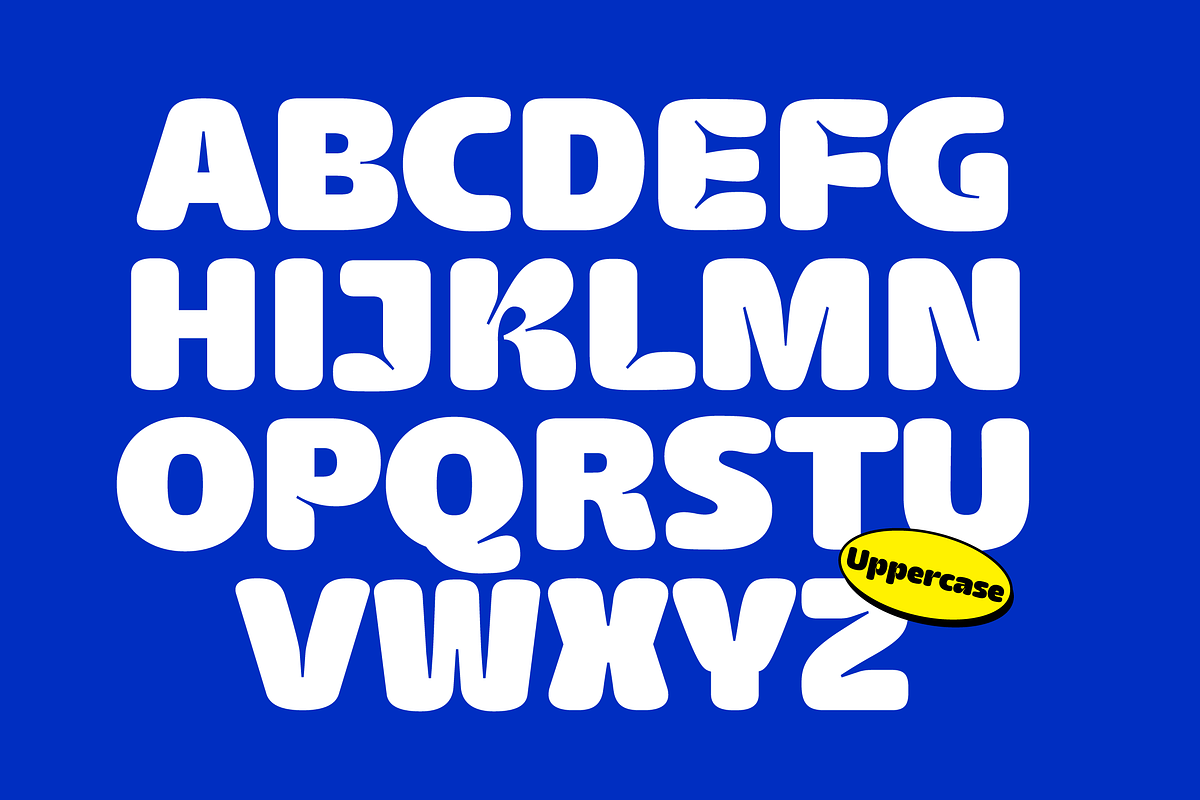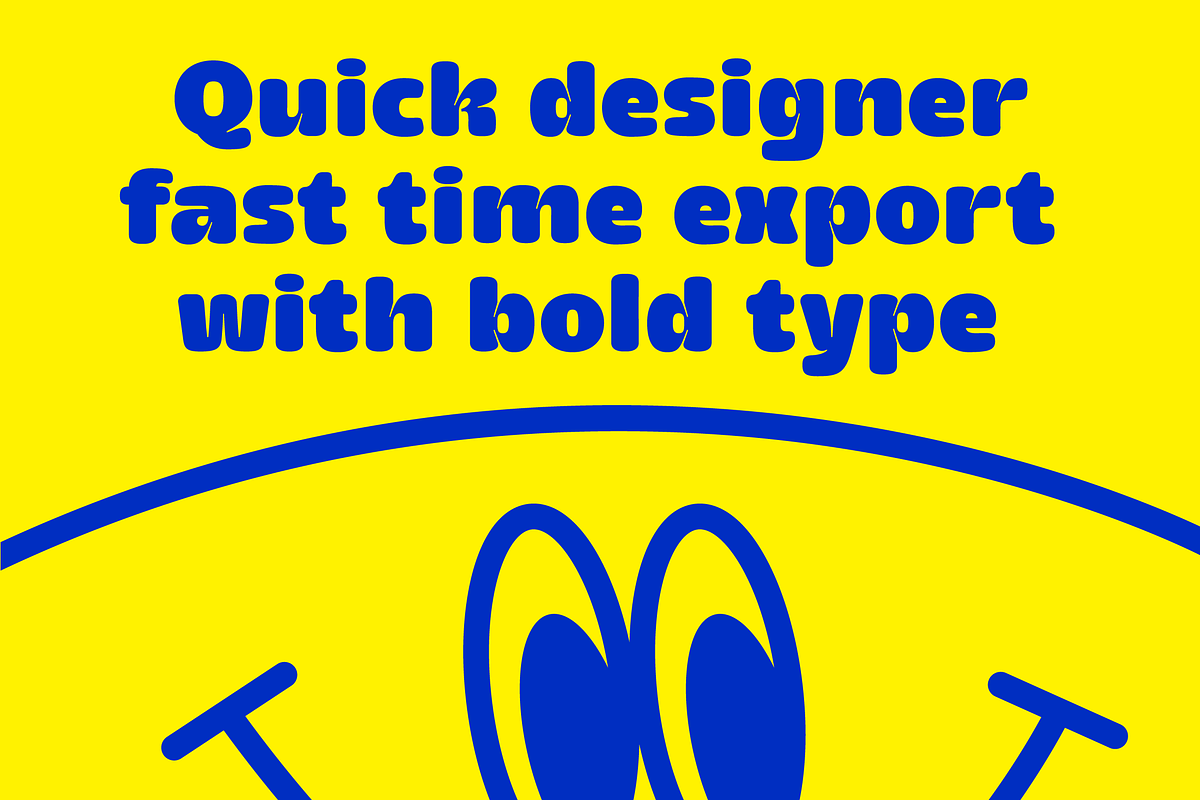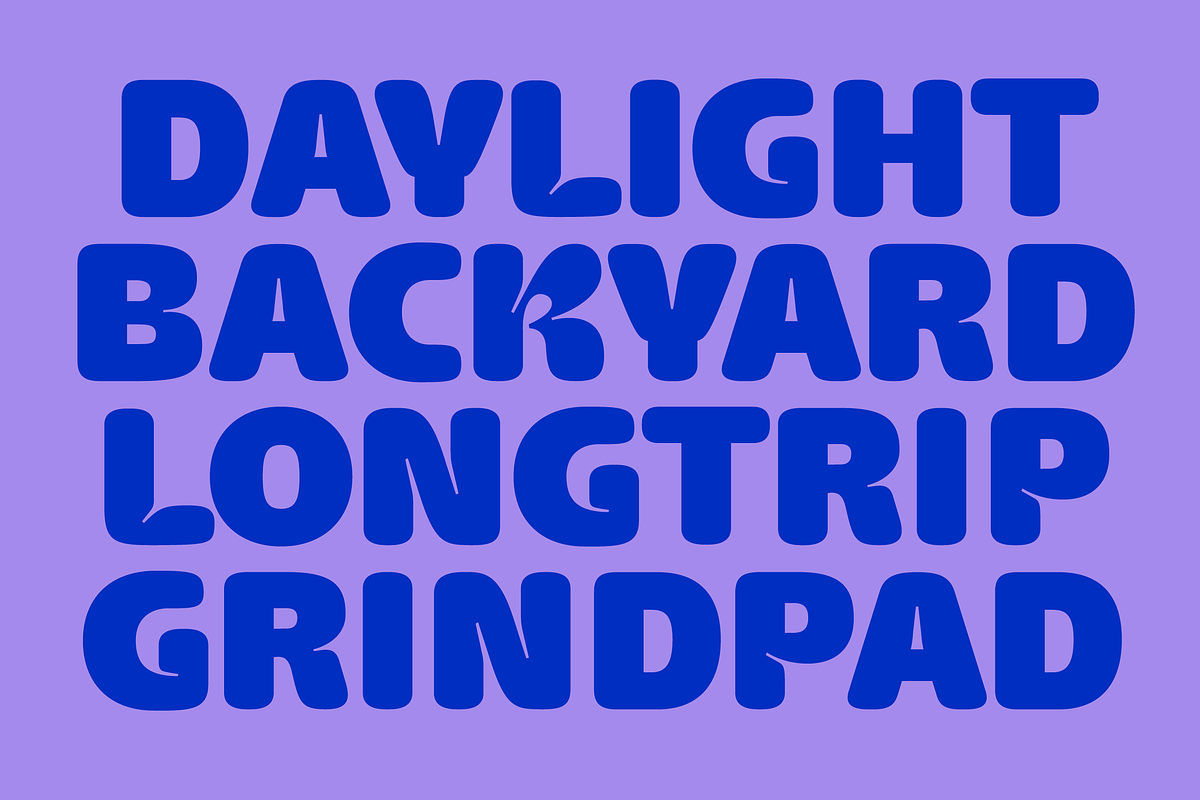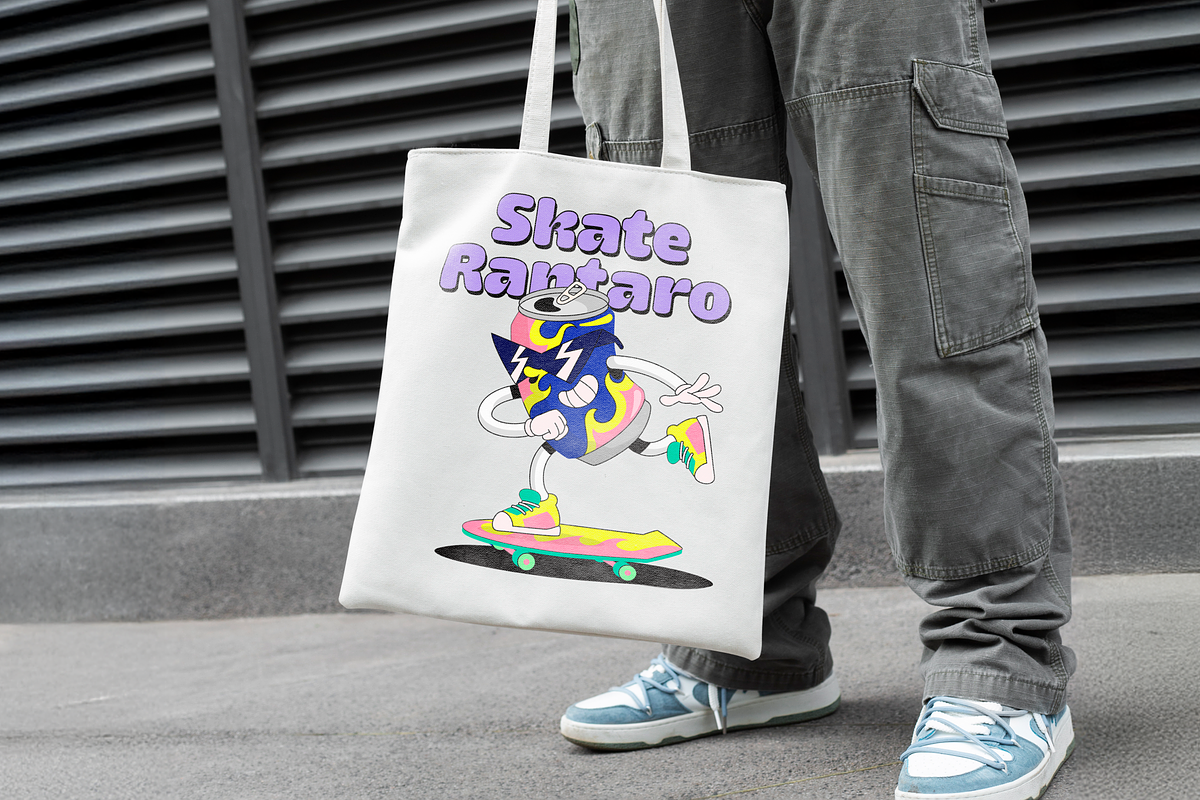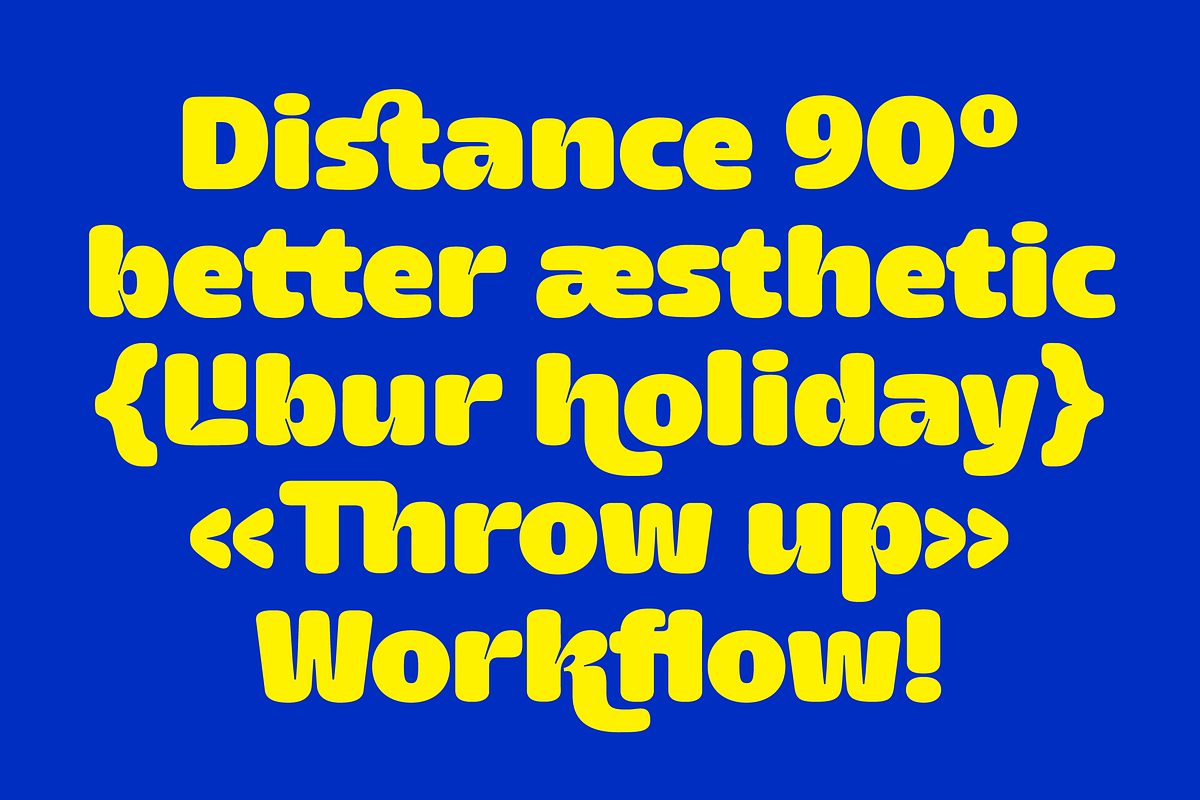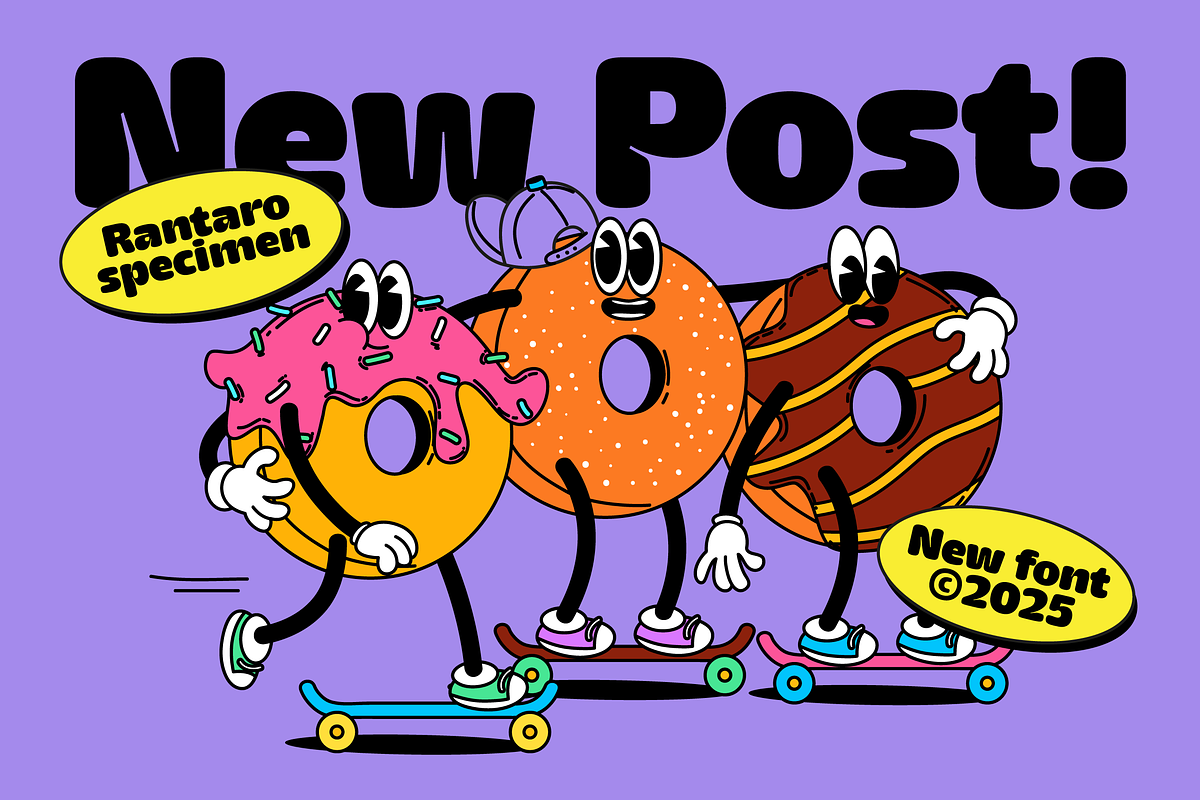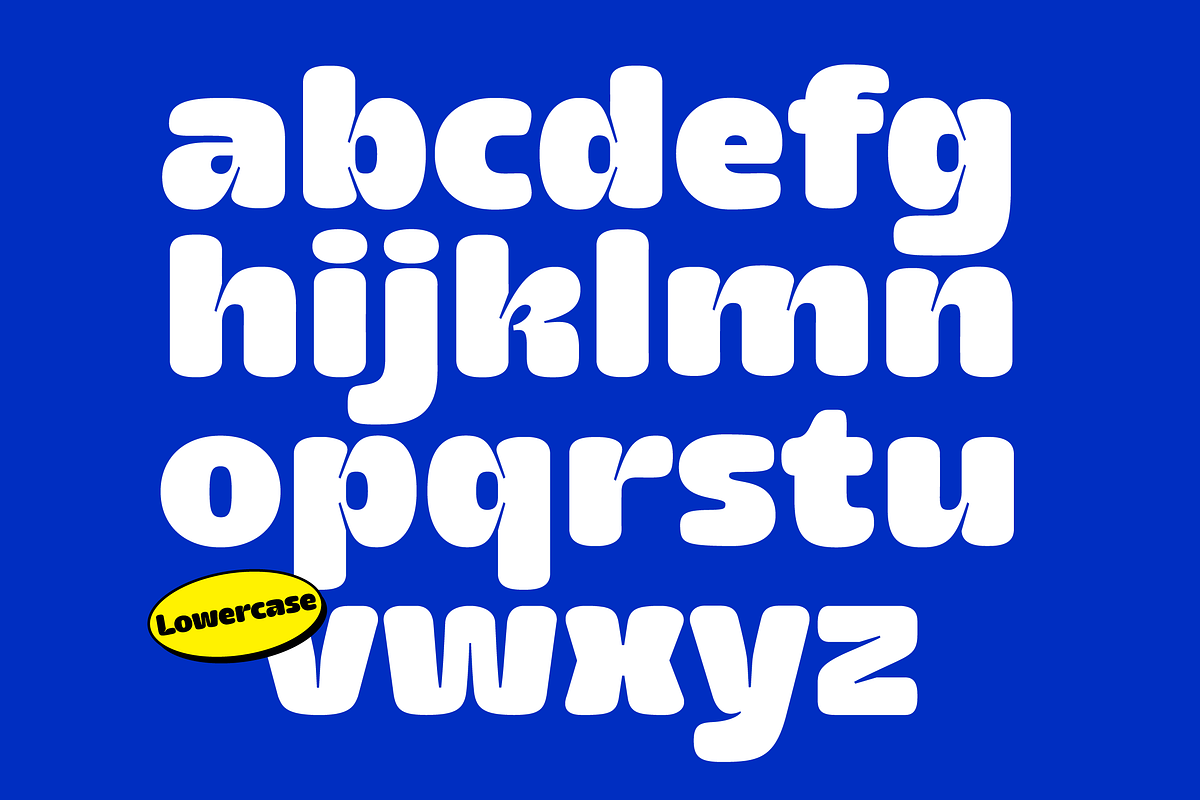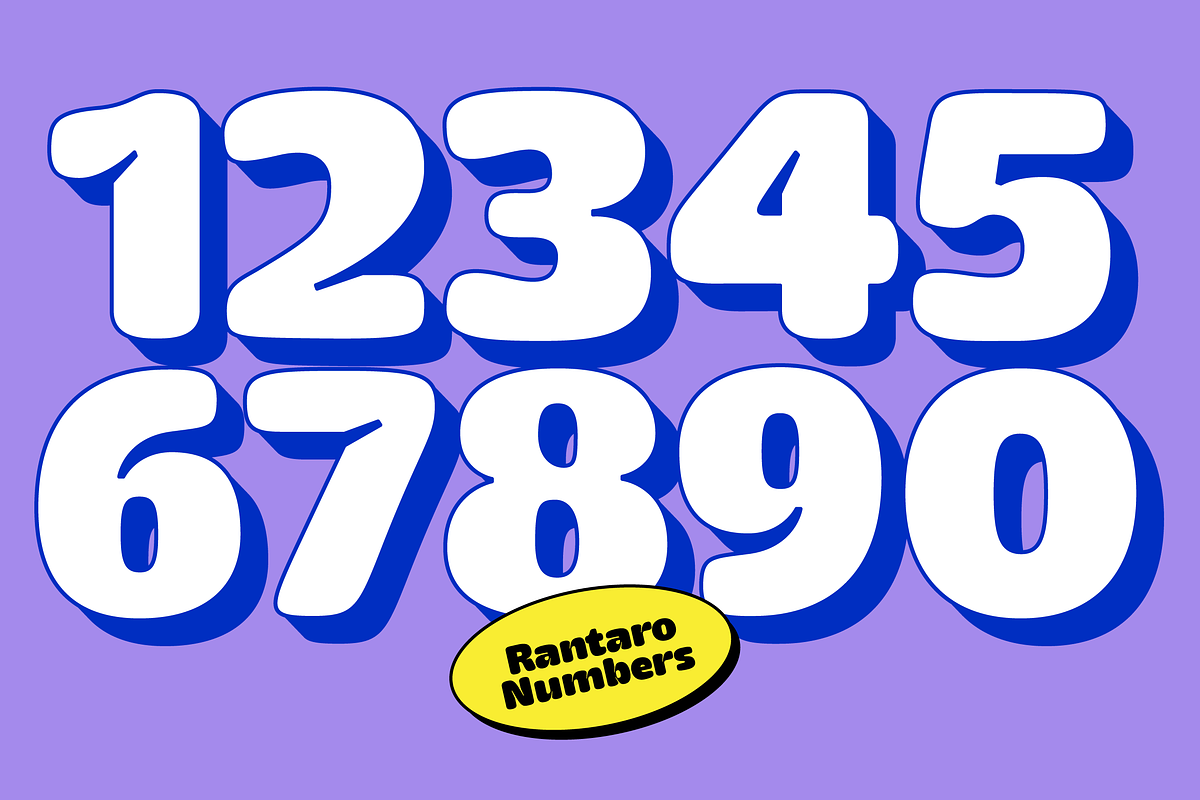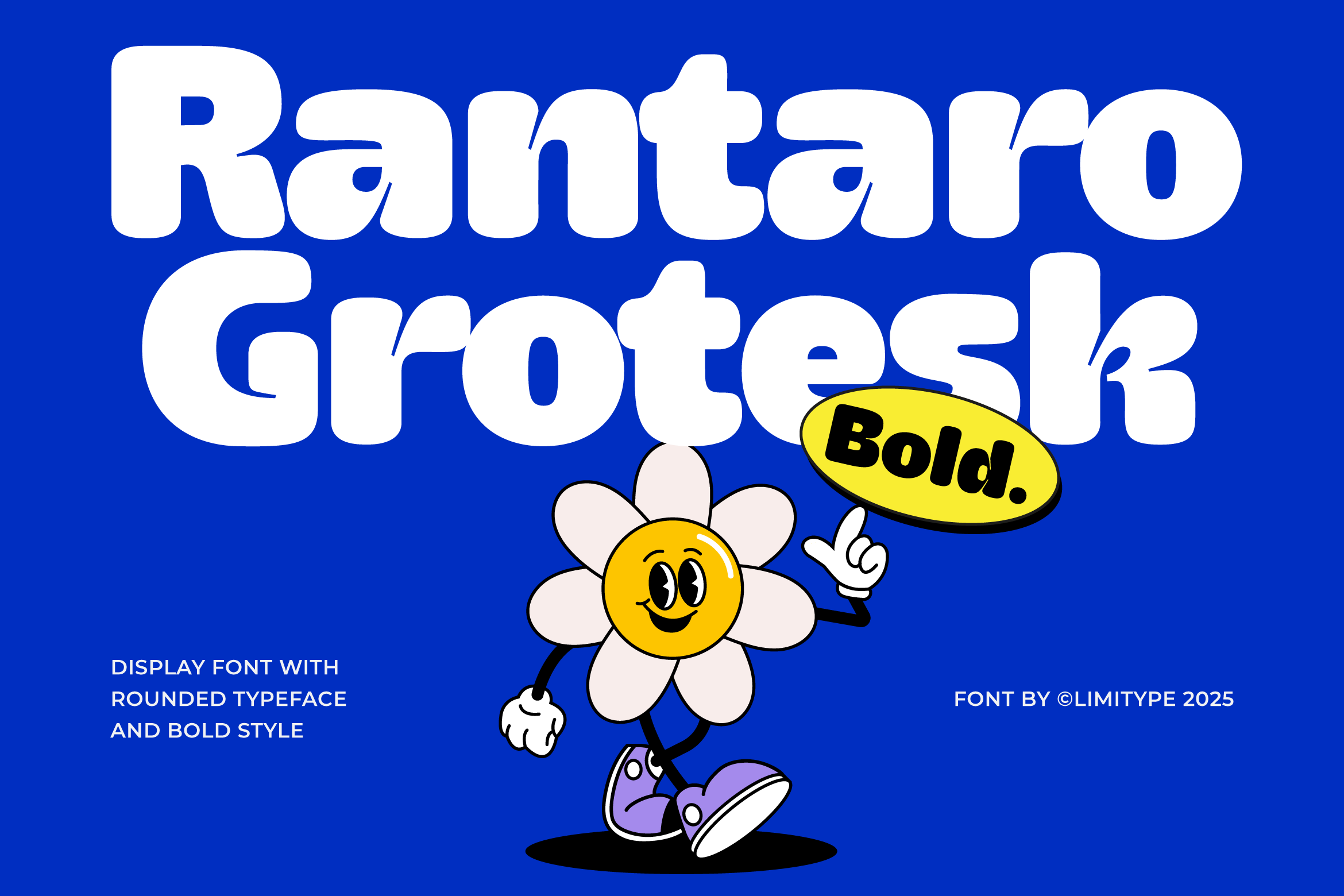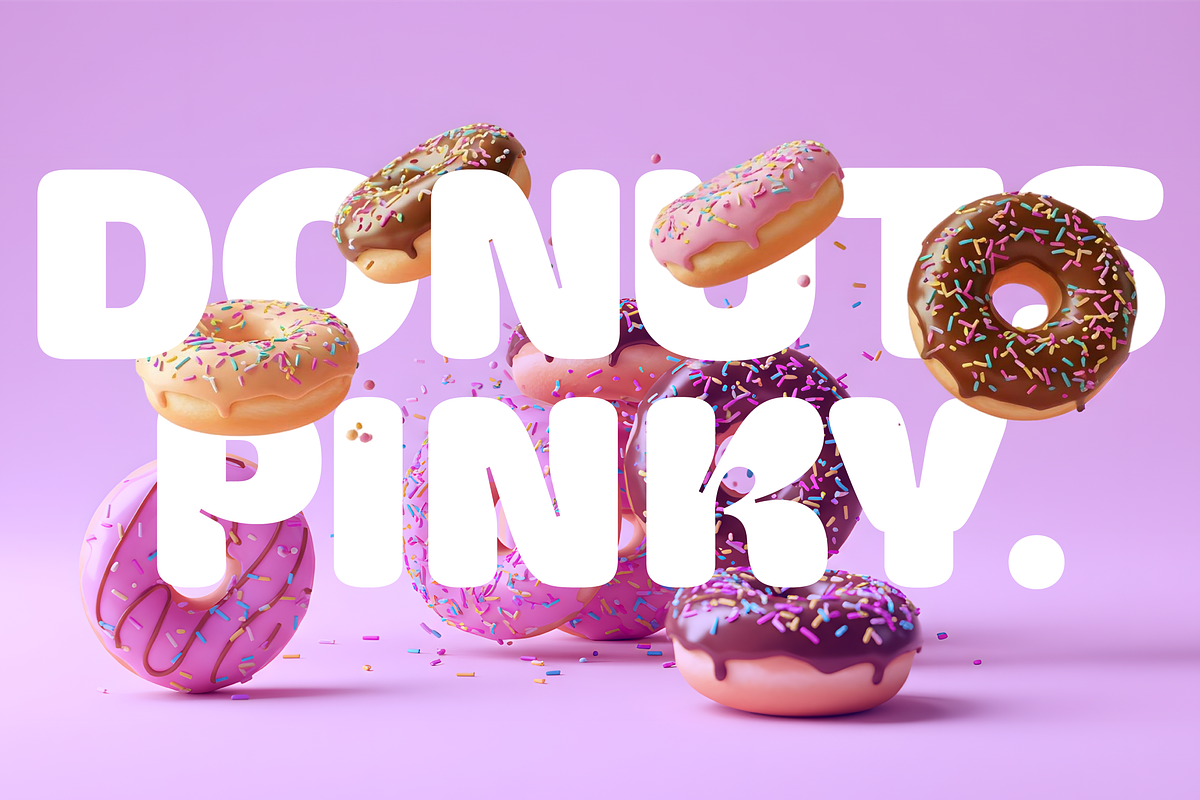
Rantaro Grotesk - Bold Font
Rantaro is a modern display font featuring a smooth, rounded style that gives it a friendly yet professional look. Unique inktrap details on several characters add personality and make it stand out. Perfect for large, eye-catching titles or headlines that need to be bold, clear, and modern without feeling too rigid.